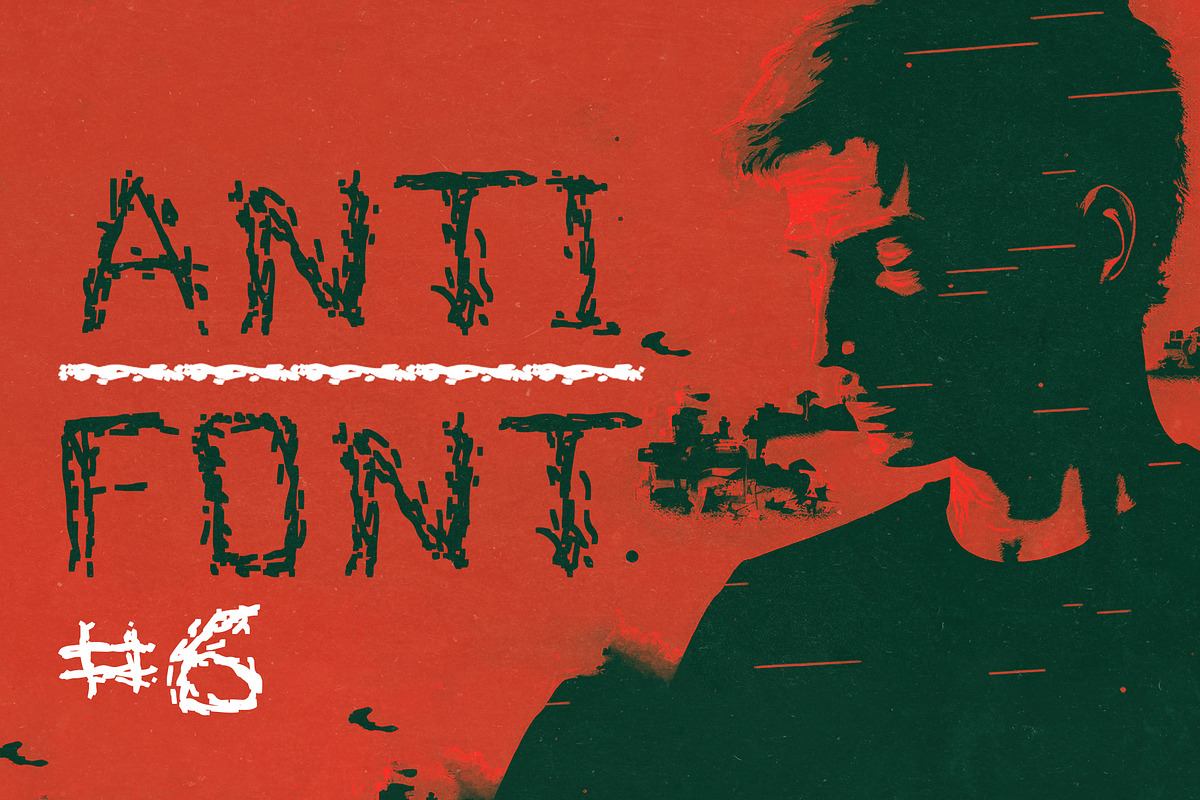
Anti-Font #6 Free Download is a bold and unconventional typeface that pushes the boundaries of traditional design. With its unique, edgy letterforms and striking presence, Anti-Font #6 is perfect for experimental branding, music posters, creative websites, and modern art projects that need to stand out and make a statement.
This font is designed to break the rules with its artistic, anti-mainstream style, making it ideal for projects that aim to evoke rebelliousness and creativity. Whether you're designing a poster for an underground event, a logo for a non-conformist brand, or an experimental art piece, Anti-Font #6 adds raw energy and individuality to your typography.